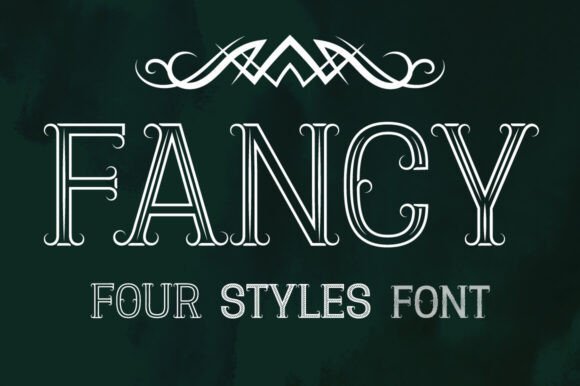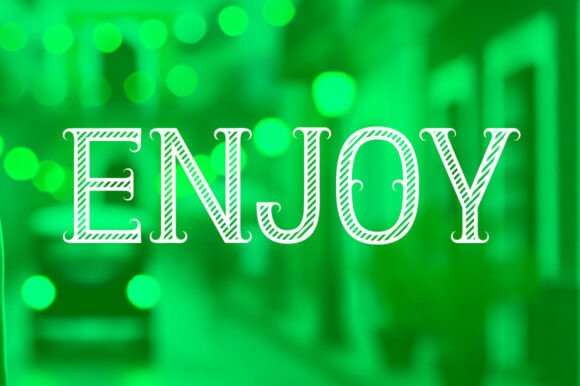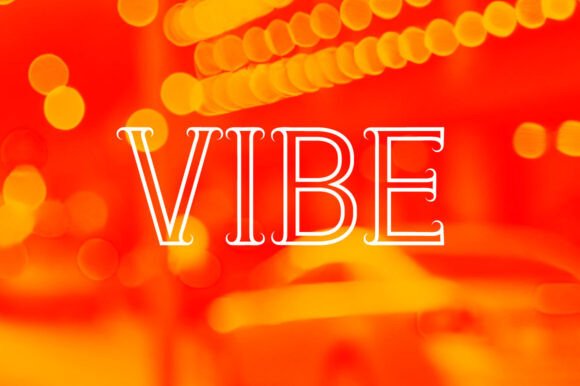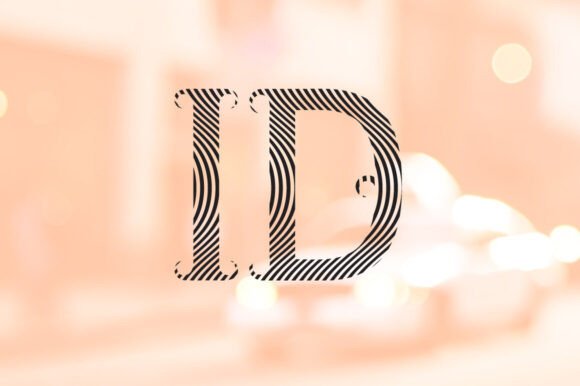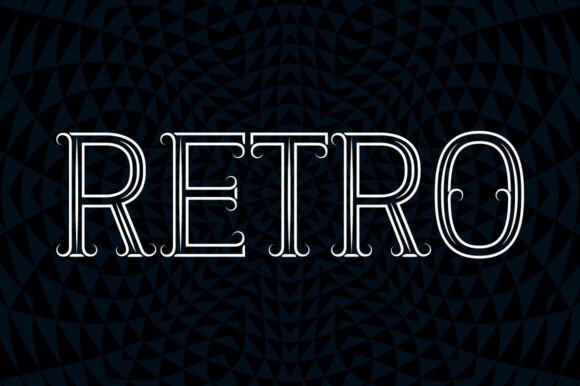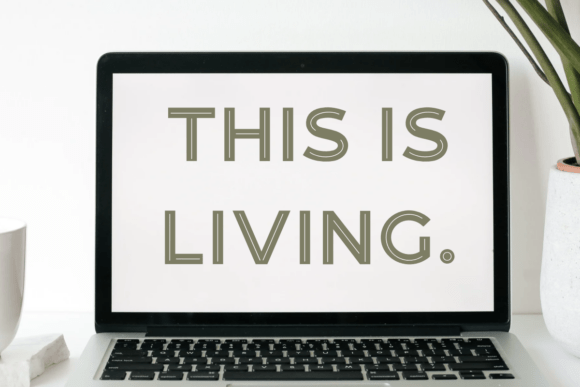
Unleash Your Creativity with Fancy Font
You’ve finally sat down with a blank notebook, a spark of inspiration, and a pen in hand. The words start flowing, and your ideas begin to take shape. But then, you pause. You want to make your notes stand out, to give them a personal touch that reflects your unique personality. That’s where Fancy Font comes in – a decorative font that adds a touch of elegance and whimsy to your written words.
Perfect for taking notes, writing a diary, or making greeting cards, Fancy Font is a versatile tool that can elevate any design project. Whether you’re a professional designer or a creative hobbyist, this font is a valuable asset that can help you add a professional touch to your work. With its endless possibilities, Fancy Font is a must-have for anyone looking to unleash their creativity and bring their ideas to life.
Fancy Font Key Features
• Unique Characteristics: Includes 1000+ glyphs, including swashes, ligatures, and alternate characters
Fancy Font Review
Fancy Font is a stylish and elegant font that can elevate your designs. ✨ One of its strongest features is its versatility, allowing it to be used in various contexts, from headings to body text. The font is also highly customizable, with a range of weights and styles to choose from. ✨ The font’s curves and lines are well-balanced, creating a sophisticated and refined look.
However, there are some limitations to consider. ⚠️ The font may not be suitable for all types of content, particularly for text that requires high readability. In some cases, the font’s curves can make it difficult to distinguish between similar letters. ⚠️ Additionally, the font’s complexity may make it challenging to pair with other fonts, requiring careful selection to achieve a harmonious design.
Design Considerations
• Use Fancy Font for headings and titles to create a stylish and elegant look.
• Choose the right weight and style to balance with body text.
• Prioritize readability when selecting font sizes and line heights.
Overall, Fancy Font is a great addition to any designer’s toolkit. With careful consideration of its limitations and strengths, it can help create sophisticated and refined designs.
Fancy Font is ideal for creating eye-catching headlines, titles, and other attention-grabbing text elements. It’s perfect for:
• Wedding invitations and other special event materials
• Branding and marketing materials
• Graphic design projects